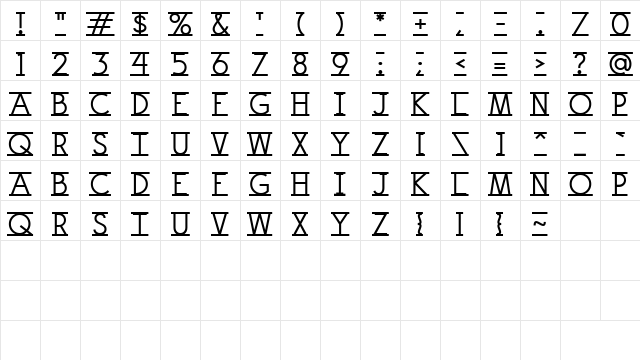
CK Deco Regular Free Font
CK Deco Regular
Design Context for CK Deco
CK Deco is a composed and adaptable typeface that performs quietly and consistently across a wide range of design contexts.